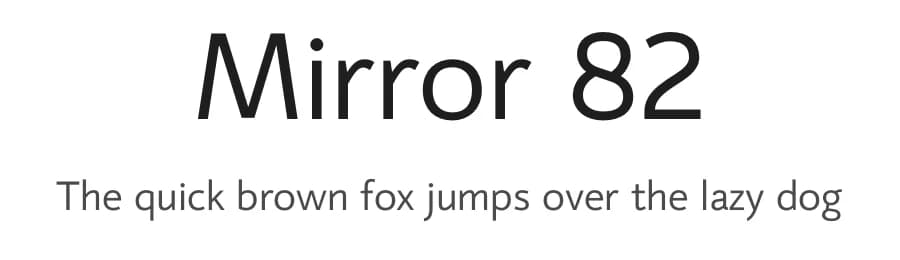
About Mirror 82 Font
Mirror 82 is a sans-serif font designed by Igor Kosinsky. It includes 324 glyphs, a regular weight, OTF (CFF) format, and 242 languages. Mirror 82 is free to download; check the license details on this page before commercial use. Sans-serif fonts like Mirror 82 work best for clean body text, user interfaces, branding, and modern layouts.
Mirror 82 Font is a versatile sans-serif font that works for both headings and body text. Pair it with a contrasting serif or slab serif font to add visual interest and a clear distinction between titles and body copy.
Mirror 82 Font
Mirror 82 Font is a sans serif typeface by Igor Kosinsky, ideal for logos, invitations, branding, and creative projects.